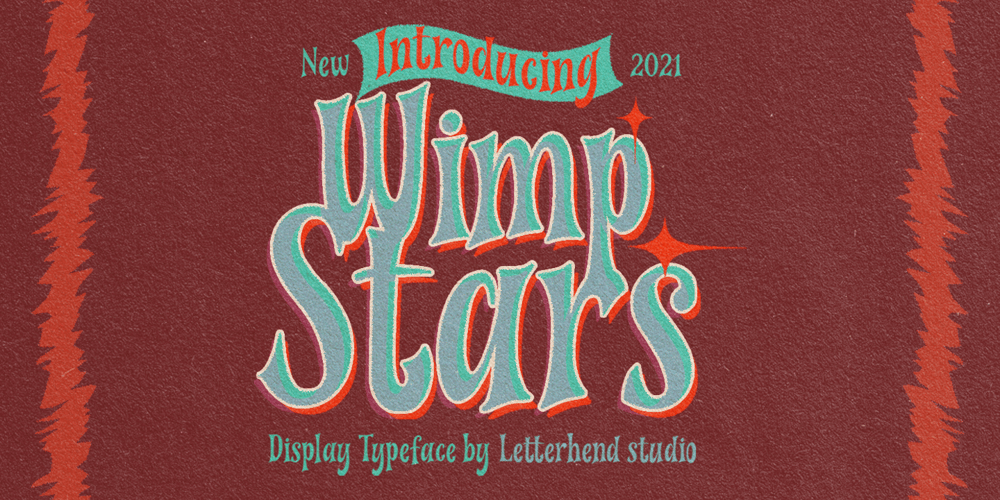
Wimp Stars
Wimp Stars font
Wimp Stars Font Family was designed by Hendry Juanda and published by Letterhend. Wimp Stars contains 1 styles and family package options. Introducing, Wimp Stars – A nostalgic display typeface. The sharp edges make this font looks great and standout for tittle, headline, logo, etc especially for old and retro style theme. Perfectly to be applied to the other various formal forms such as invitations, labels, logos, magazines, books, greeting / wedding cards, packaging, fashion, make up, stationery, novels, labels or any type of advertising purpose.Features : uppercase & lowercase numbers and punctuation multilingual alternates & ligatures PUA encoded We highly recommend using a program that supports OpenType features and Glyphs panels like many of Adobe apps and Corel Draw, so you can see and access all Glyph variations.